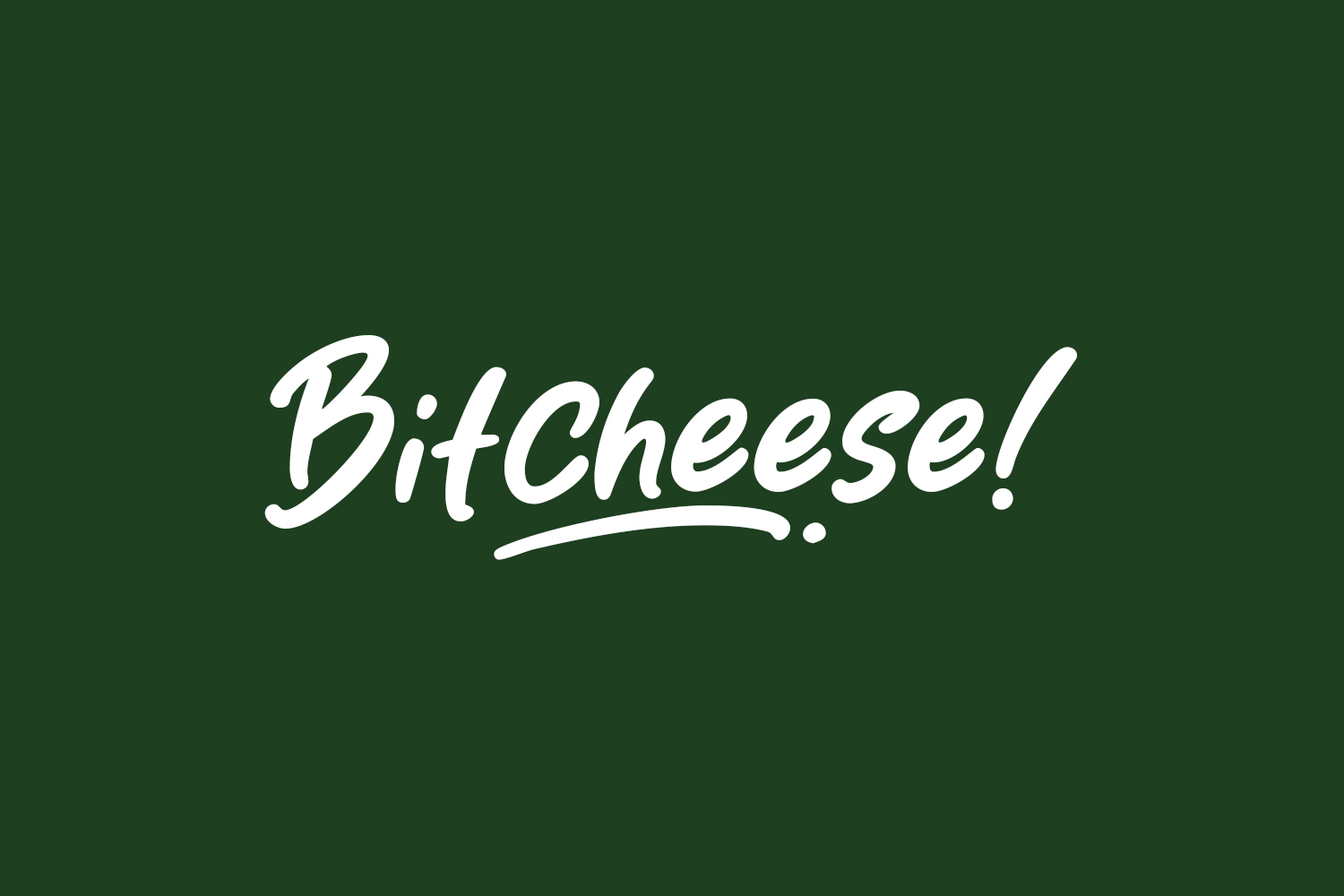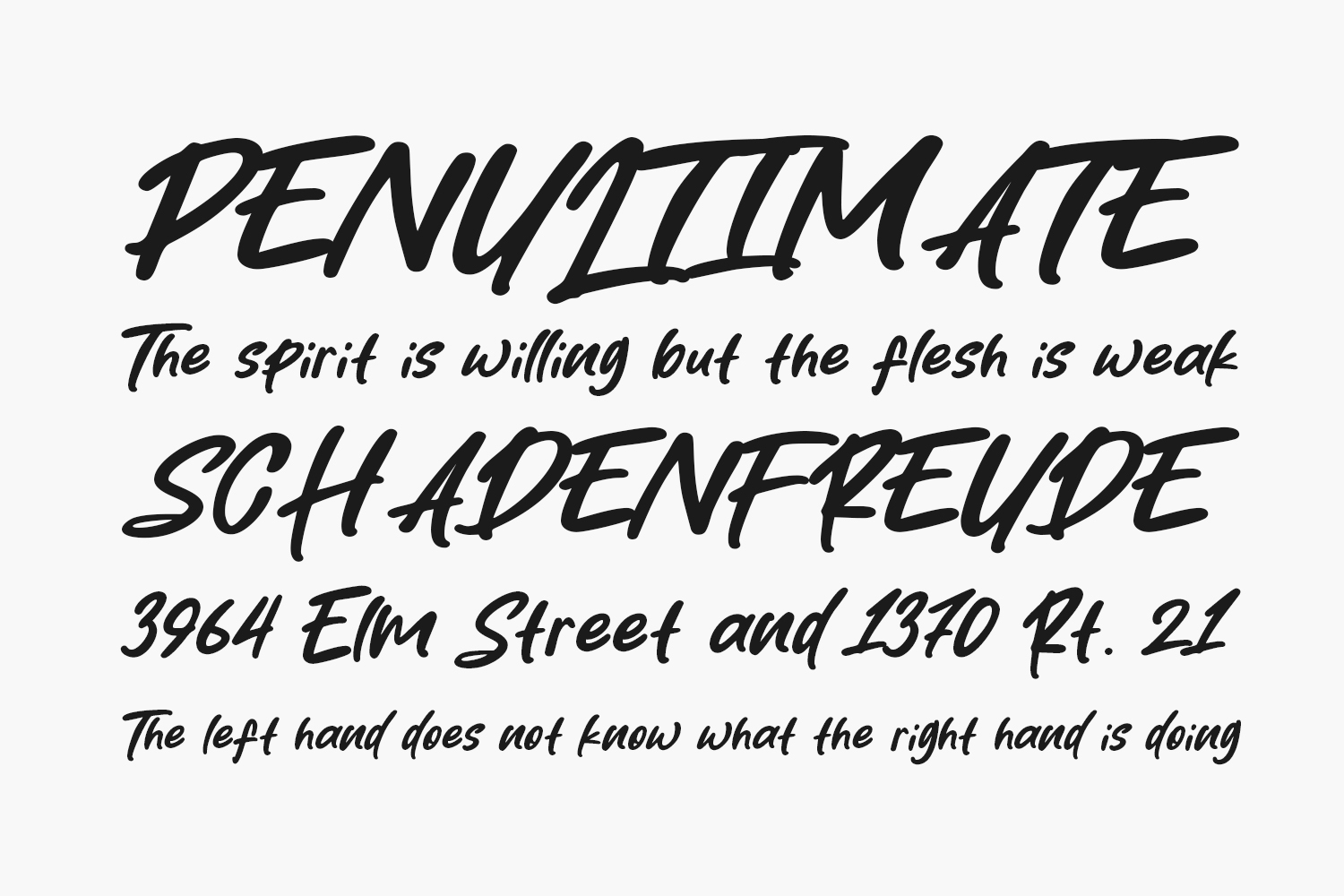
Bitcheese Free Font is a modern and fancy display font perfect for posters, logos, magazines, book covers, banners, and many more! Get this amazing font, and use it to create lovely designs. It can easily be matched to an incredibly large set of projects, so add it to your creative ideas and notice how it makes them stand out. Bitcheese Signature Free Font is free for personal or commercial use.